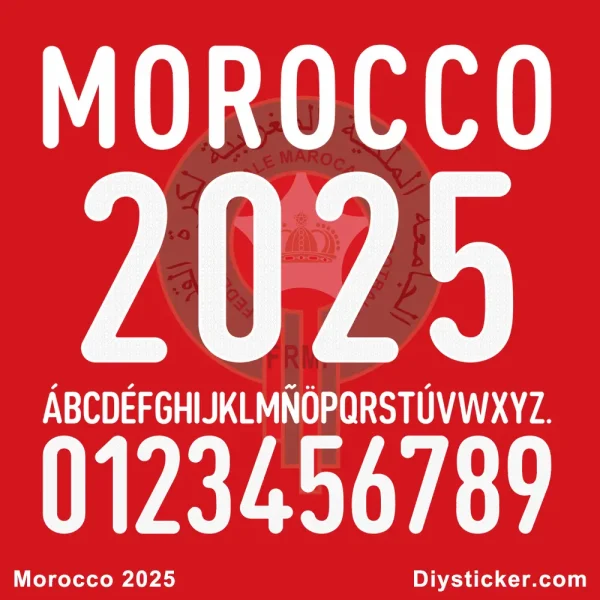
Design with the Pride of the Atlas Lions: The Morocco 2025 National Team Font
Embrace the spirit and rising football legacy of Morocco with this official-style Morocco 2025 National Team Font. Designed to capture the modern energy of the celebrated Atlas Lions, this font is the essential tool for fans and creators looking to produce authentic jerseys, fan apparel, and support materials.